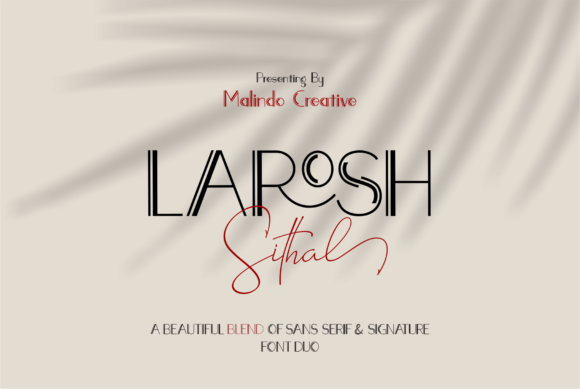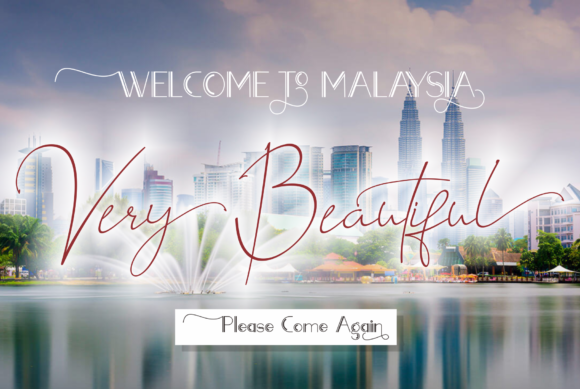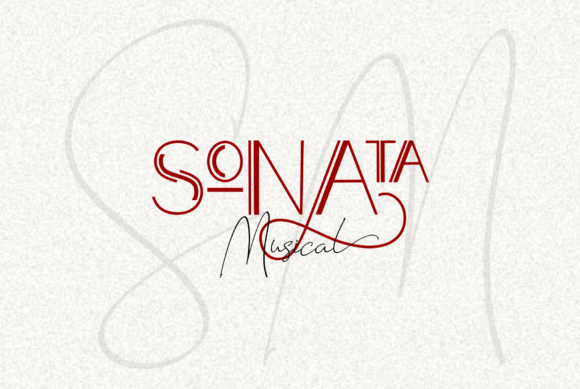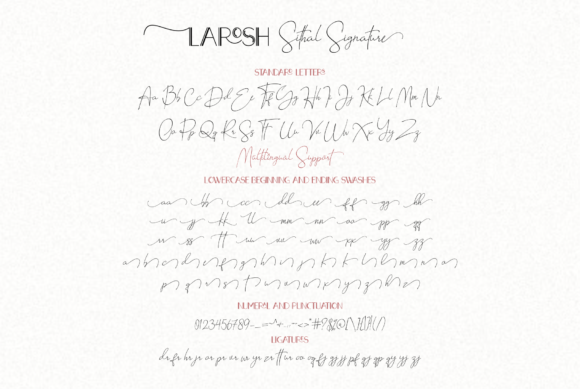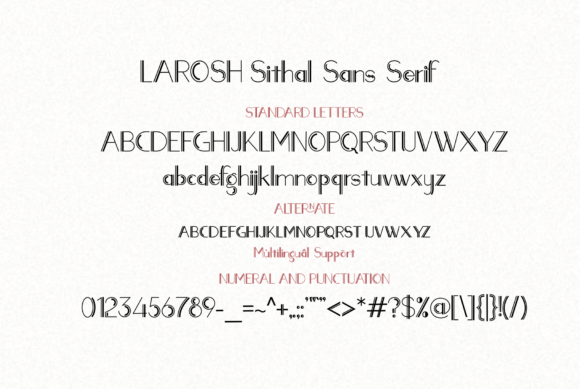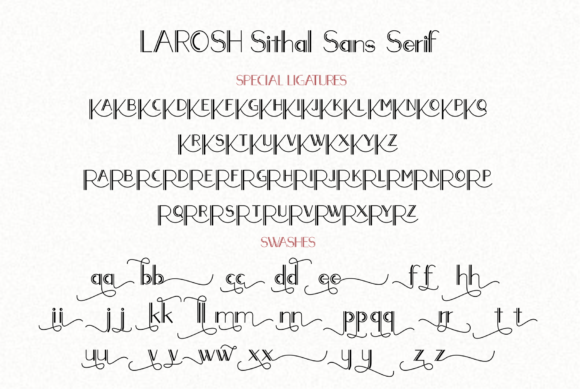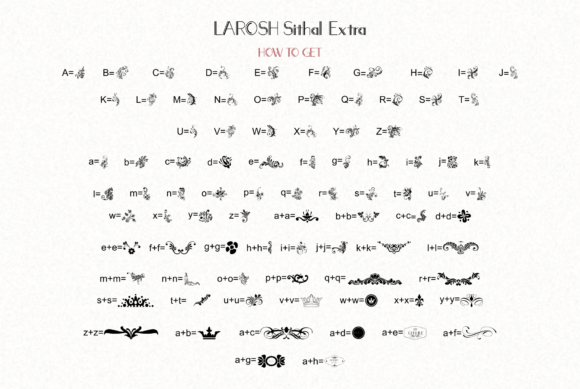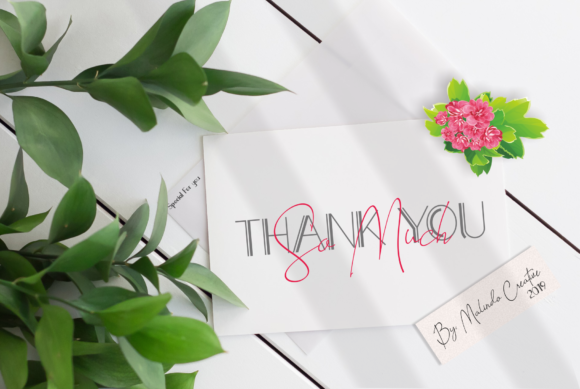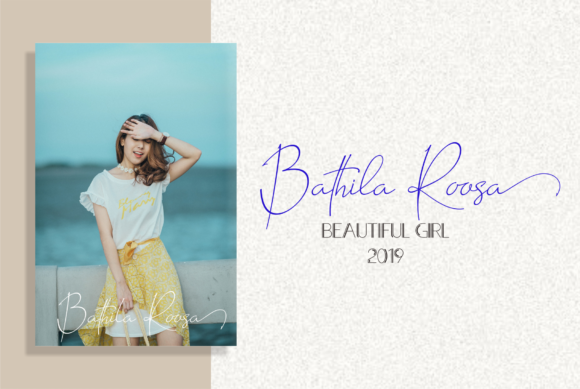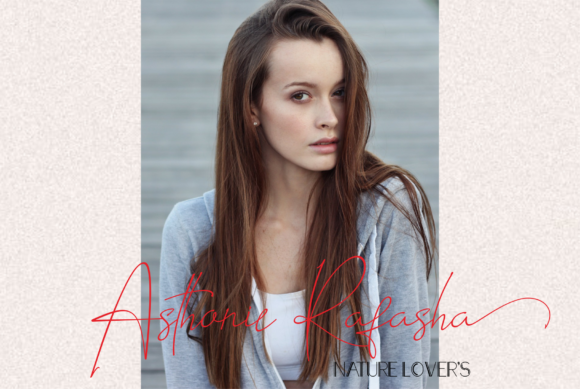
HomePersonal Use FreeLarosh Sithal Duo Personal Use Free Larosh Sithal Duo FacebookTwitterPinterestWhatsApp 1 of 17 About Larosh Sithal Duo Font Larosh Sithal is a fun and simple script font duo that combines elegance and authenticity into one truly unique bundle. DOWNLOAD NOW People also explored Greaner Font Asoka Font Andalusia Font Canera Font FarmHouse Font Audrey Tatum Font Heulwen Font The Centurion Font Evepos Font 194 0 TagsLarosh Sithal Duo Font Previous articleWonderyNext articleBoronic LEAVE A REPLY Cancel reply Comment: Please enter your comment! Name:* Please enter your name here Email:* You have entered an incorrect email address! Please enter your email address here Website: Save my name, email, and website in this browser for the next time I comment. Personal Use Free Rafika Personal Use Free Read more about this font Fakedes Personal Use Free Read more about this font Token No 721 Personal Use Free Read more about this font Sweet Cake Personal Use Free Read more about this font BLOG Free vs Paid Fonts: Why Investing in Premium Fonts Is Worth It Free vs Paid Fonts: Why Premium Fonts Are Worth It in 2025 The debate of free vs paid fonts continues in the design world. While... Exploring Font Trends The 10 Best Handwriting Fonts to Add Personality to Your Designs Using Fonts in Digital Marketing: Tips to Strengthen Your Brand Identity